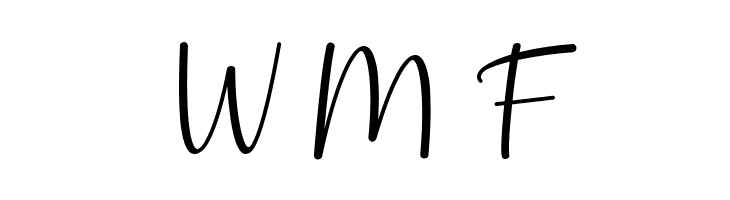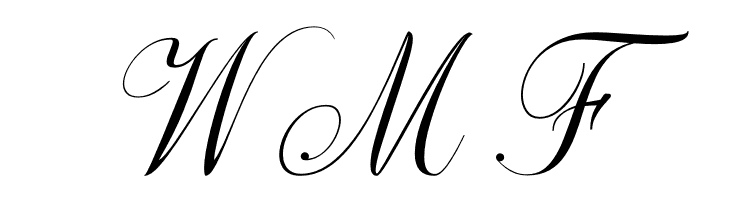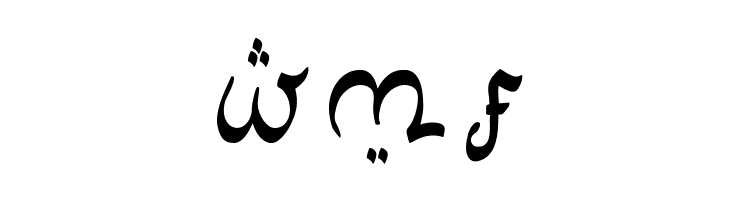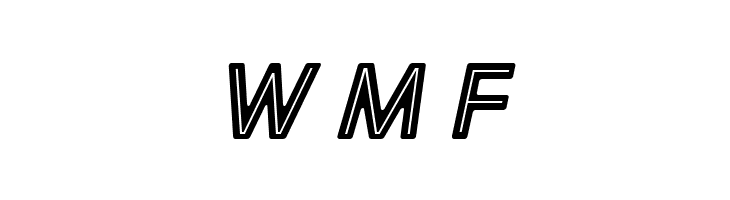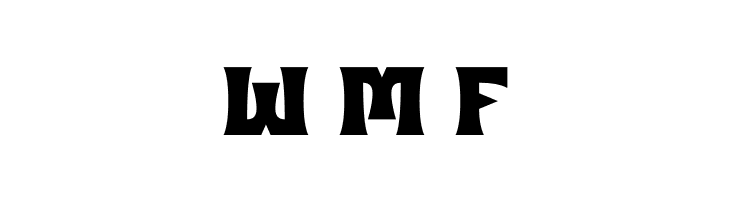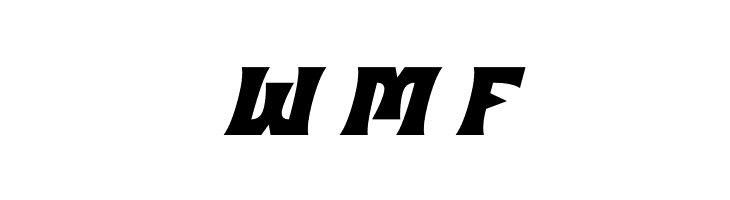
A flowing, elegant calligraphic font with smooth, continuous strokes.
A graceful, flowing script font with interconnected letters and a hand-drawn feel.
An elegant calligraphy font with flowing, interconnected strokes and ornate flourishes.
A spooky, dripping font perfect for Halloween themes.
A playful, balloon-like font with rounded and elongated letterforms.
A sophisticated calligraphy font with elegant, flowing strokes and decorative flourishes.
A bold, calligraphic font with flowing, decorative curves.
A hand-drawn, rustic font with tall, narrow characters and an artistic, organic texture.
A bold, dynamic script font with calligraphic influences and sharp edges.
An elegant, flowing script font with a calligraphic style.
A tall, condensed font with sharp, angular edges and a vintage-modern style.
A spooky, dripping font perfect for Halloween themes.
Bold, inline, all caps, italicized font with a modern style.
A graceful calligraphy-style script font with elegant, flowing letters.
A tall, narrow handwritten font with a playful and elegant style.
A playful, bold handwritten font with a quirky, festive vibe.
A bold, angular font with a spooky, Halloween-inspired aesthetic.
A bold, angular, and italicized font with a modern, edgy style.
An elegant calligraphic font with flowing, decorative strokes and intricate swirls.
A graceful calligraphic script font with elegant curves and dynamic flow.
A decorative Halloween-themed font with spooky silhouettes and playful designs.
A bold, angular font with a spooky, playful Halloween theme.
A playful, spooky font with jagged, uneven strokes, perfect for Halloween themes.
A spooky, bone-themed font perfect for Halloween projects.
A dynamic cursive font with elegant, sweeping strokes and modern calligraphic style.
A whimsical, spooky font with tall, narrow characters and playful serifs.
A playful, handwritten font with tall, narrow uppercase letters and smooth strokes.
A bold, brushstroke-style font with an energetic, hand-drawn appearance.
A playful, spooky font with a hand-drawn, whimsical style.
A flowing, cursive font with elegant, interconnected letters and a modern calligraphic style.
An elegant calligraphic font with intricate curves and high contrast.
A tall, narrow serif font with high contrast and elegant serifs.
A whimsical and playful Halloween-themed icon font.